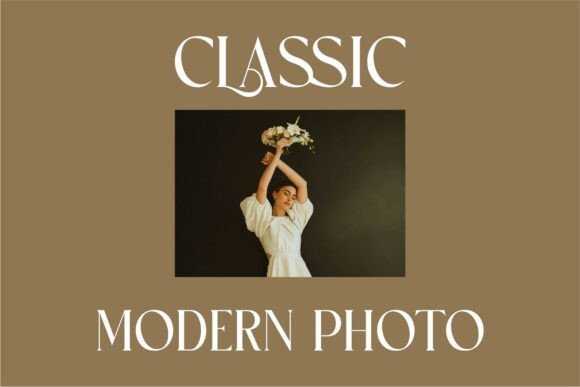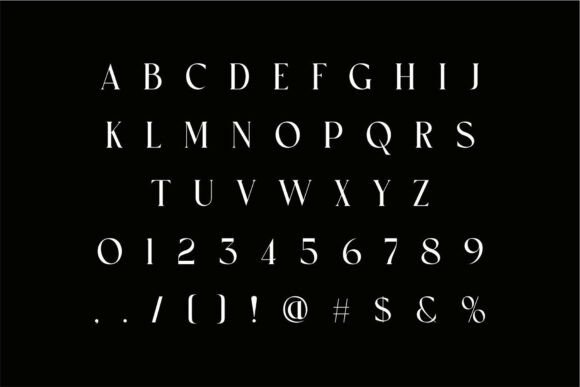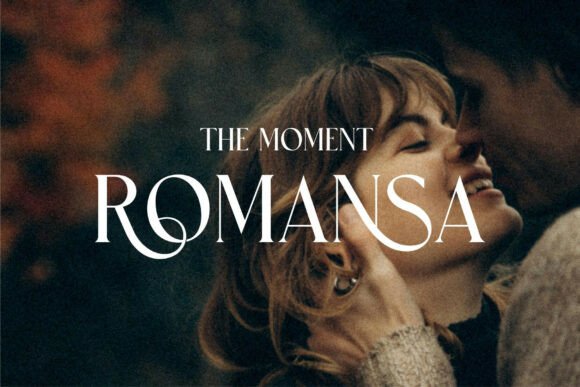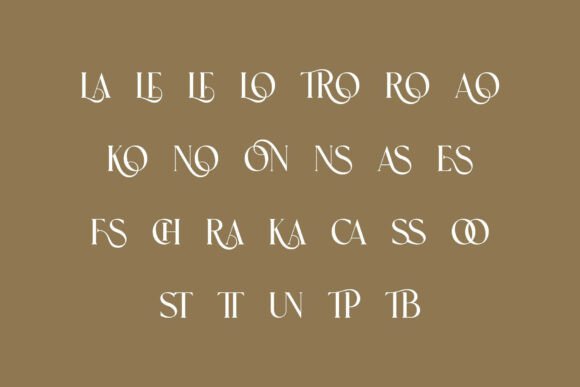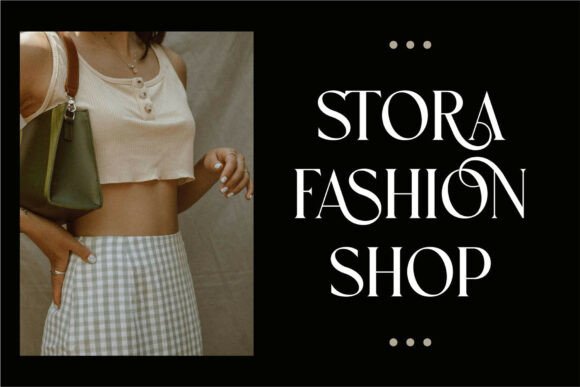
Introducing COLAGE: The Ultimate Serif Font for Elegant and Playful Designs
In the world of typography, a font can make all the difference in creating a lasting impression. Whether you’re a designer, crafty DIY enthusiast, or a business owner looking for a unique brand identity, the right font can elevate your project from ordinary to extraordinary. This is where COLAGE comes in – a breathtaking Serif font that combines charm, elegance, and boldness in a captivating blend.
A Perfect Mix of Modern Design and Romantic Sentiments
COLAGE is more than just a font – it’s an experience. With its modern design and romantic sentiments, this font is perfect for creating heart-warming messages and designs that resonate with your audience. Its cheerful and lively vibe evokes joy and playfulness, making it an excellent choice for projects that require a touch of whimsy and sophistication.
Authentically Unique Features
What sets COLAGE apart from other fonts is its authentically unique features. The font’s designer has poured their heart and soul into crafting a typography that is both elegant and playful. The result is a font that is not only visually stunning but also highly versatile. Whether you’re creating wedding invitations, birthday cards, or branding materials, COLAGE is the perfect choice.
COLAGE is a font that can be used in a variety of projects, from fashion and photography to book covers and more. Its sophisticated yet playful design makes it an excellent choice for designers and crafters who want to create eye-catching typography that stands out from the crowd. Here are some ideas to get you started:
- Birthday cards and party decorations
- Fashion and photography projects, including magazine covers and editorial spreads
- Book covers and typography
Why Choose COLAGE?
With so many fonts available, why choose COLAGE? Here are just a few reasons:
- Unique and authentic design: COLAGE is a one-of-a-kind font that will set your project apart from others.
- Highly versatile: This font can be used in a variety of projects, from formal to informal.
- Elegant and playful: COLAGE combines sophistication and whimsy, making it perfect for projects that require a touch of charm.
- Easy to read: Despite its elegant design, COLAGE is highly legible, making it perfect for body text and headlines.
Tips for Using COLAGE Effectively
To get the most out of COLAGE, here are some tips for using it effectively:
- Experiment with font sizes: COLAGE looks great in a variety of font sizes, from large headlines to smaller body text.
- Pair with complementary fonts: Try pairing COLAGE with other fonts to create a unique and visually appealing typography.
- Use it sparingly: While COLAGE is a beautiful font, it can be overwhelming if used excessively. Use it sparingly to create emphasis and visual interest.
In conclusion, COLAGE is a breathtaking Serif font that is perfect for designers and crafters who want to create elegant and playful designs. With its unique and authentic design, highly versatile nature, and elegant yet playful vibe, COLAGE is the perfect choice for a variety of projects. Whether you’re creating wedding invitations, branding materials, or book covers, COLAGE is sure to impress.